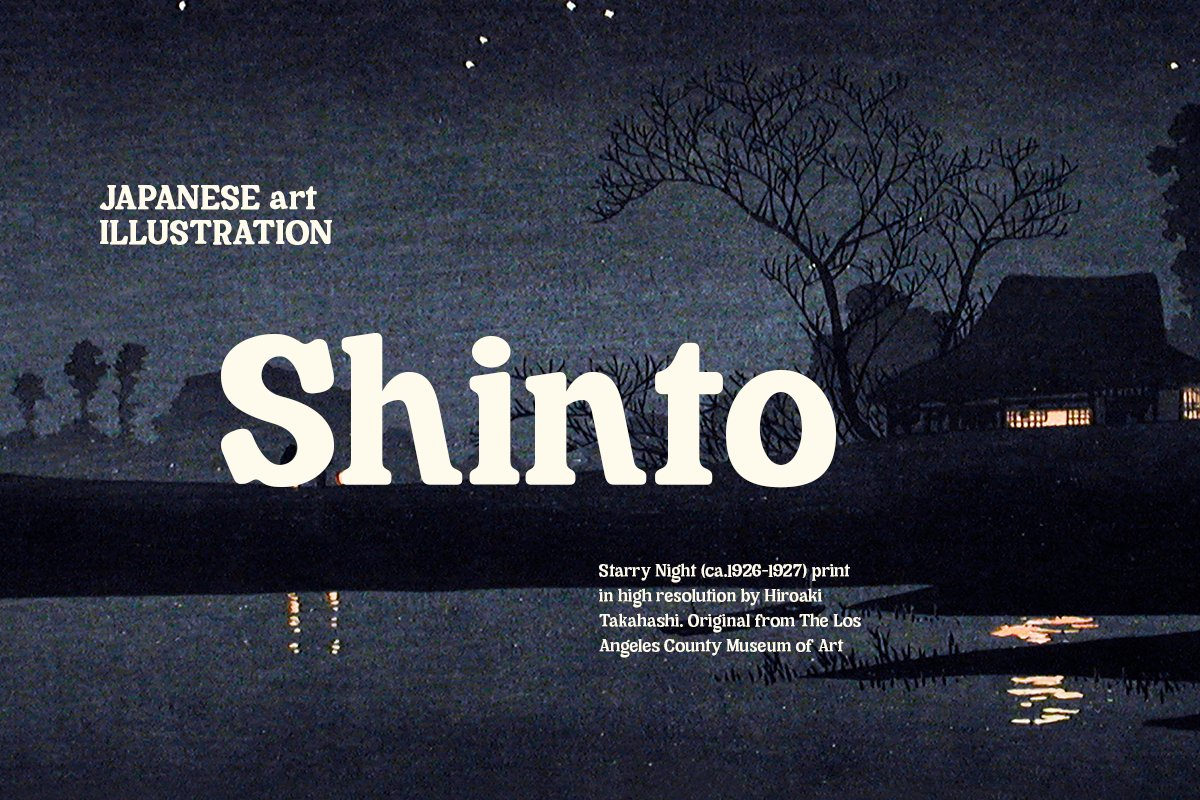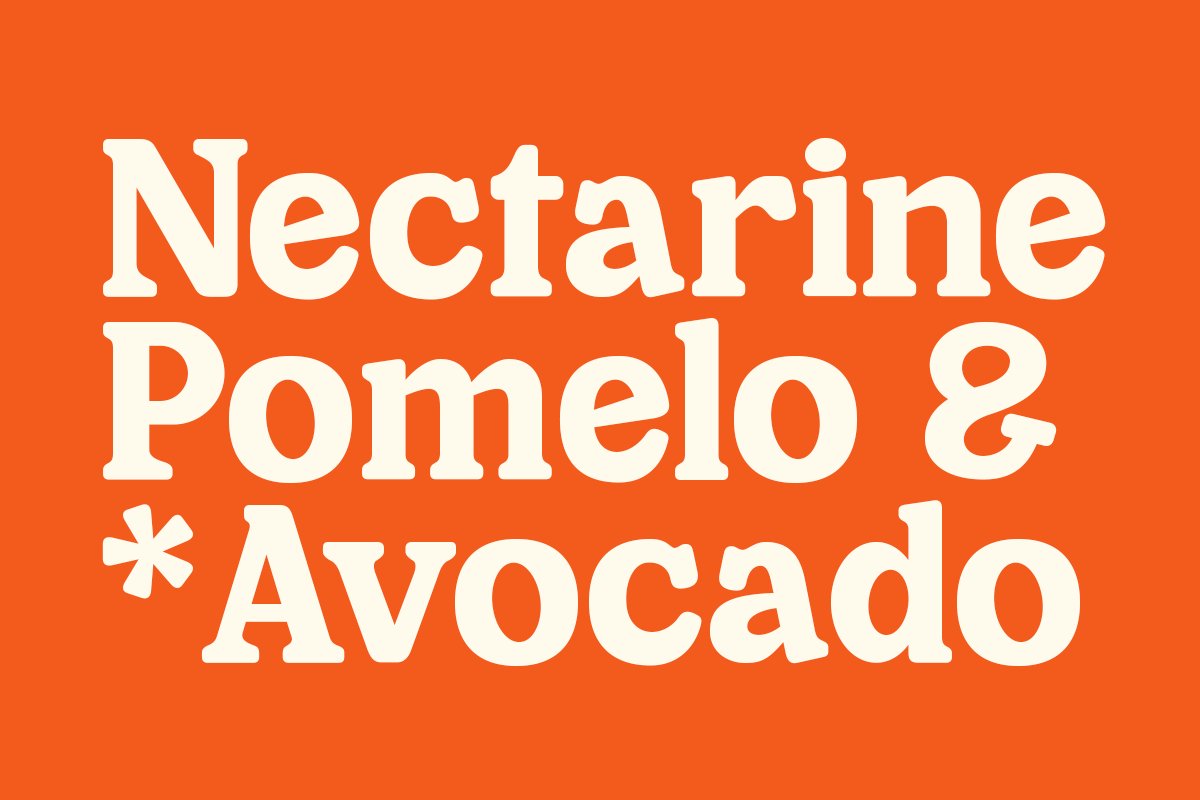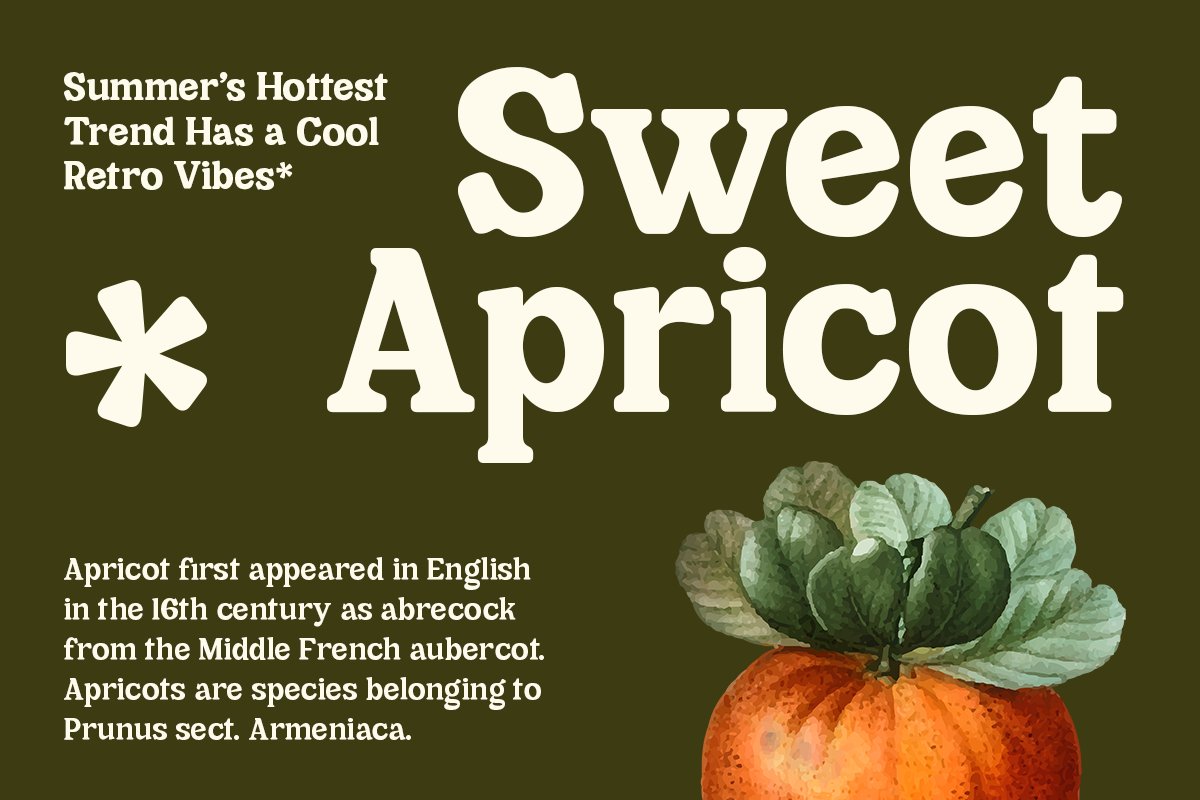
About the Cheria Humanist Retro Font
Say hello to our new Retro font, Cheria!Cheria – A chunky serif texture with a bit of humanist touch, With its good readability, Cheria is perfect for both displays as well as body text, Inspired by all the retro aesthetics making a comeback, Cheria is perfectly suitable for creating thoughtful yet still contemporary designs such as logos, packaging, editorial, and more
Cheria – Has a unique shape, where all uppercase letters have alternates so you can combine them to make your text and header look more interesting!What you get : Regular and Bold familyTTF, OTF and WOFF versionAlternate and LigatureInstructions ( Access special characters, even in circuit design )Letters, numbers, symbols, and punctuationUse in many programs even in CanvaMultilingual SupportLanguage Support: Danish, English, Estonian, Filipino, Finnish, French, Friulian, Galician, German, Gusii, Indonesian, Irish, Italian, Luxembourgish, Norwegian Bokmål, Norwegian Nynorsk, Nyankole, Oromo, Portuguese, Romansh, Rombo, Spanish, Swedish, Swiss-German, Uzbek (Latin)Come and say hello over on Instagram! https://www